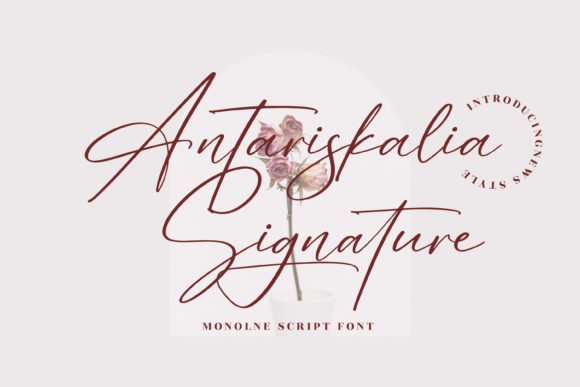
The Perfect Script for Your Masterpiece: Unveiling the Beauty of Antariskalia Signature Font
Have you ever stared at a blank canvas, trying to come up with the perfect design concept? The blank page stares back at you, taunting you to create something extraordinary. Suddenly, the perfect script font appears in your mind’s eye – elegant, sophisticated, and uniquely yours. That’s exactly what Antariskalia Signature Font is designed to evoke.
Antariskalia Signature Font is a stylish and incredibly elegant script font that adds a customized touch to any design. Whether you’re a seasoned designer or just starting out, this font is a valuable addition to your toolkit. With its PUA encoding, you can access all of the glyphs and swashes with ease, giving you complete creative control over your designs.
Antariskalia Signature Font Key Features
- Font Family: A beautiful, elegant script font designed for creating unique signatures and personal touches.
- Font Size: Designed to be highly scalable, with optimal results at sizes ranging from 12 to 72 points.
- Unique Characteristics: Features flowing connections, elegant swashes, and subtle flourishes to add a touch of sophistication to any signature.
- Character Count: Includes a comprehensive set of characters, including uppercase and lowercase letters, numbers, and punctuation marks.
Antariskalia Signature Font Review
As a designer, I was excited to dive into the Antariskalia Signature Font, and overall, it’s a solid addition to any typography library. Here’s what I liked: ✨
- Unique aesthetic: The font’s quirky, handwritten style gives it a distinct character that’s perfect for creative projects.
- High-quality design: The font’s lines are smooth, and the letterforms are well-spaced, making it easy to read.
- Comprehensive character set: The font includes a wide range of characters, including ligatures and alternates, which makes it versatile and suitable for various design applications.
However, there are a few limitations: ⚠️
- Not ideal for body text: While the font is great for headlines and titles, its irregular style makes it less suitable for large blocks of body text.
- Lack of bold weights: The font only comes in regular and italic weights, which might limit its use in certain design contexts.
Overall, the Antariskalia Signature Font is a great choice for designers looking for a unique, high-quality font for creative projects. Its limitations are relatively minor, and its strengths make it a valuable addition to any typography library.
Alternatives to Antariskalia Signature Font
Great Vibes Font is a modern, elegant script font perfect for creating a professional and luxurious look. It’s ideal for logos, branding, and packaging designs. Great Vibes Font has a more refined and polished appearance compared to Antariskalia Signature Font, which has a more handwritten feel.
Carolyna Pro Font is a high-end script font designed for creating sophisticated and elegant designs. It’s suitable for fashion, beauty, and luxury brands. Carolyna Pro Font has a more luxurious and refined appearance compared to Antariskalia Signature Font, which has a more casual feel.
Alex Brush Font is a beautiful, elegant script font perfect for creating a professional and stylish look. It’s ideal for logos, branding, and packaging designs. Alex Brush Font has a more refined and polished appearance compared to Antariskalia Signature Font, which has a more handwritten feel.
Q: Is the font optimized for use at small font sizes?
Yes, the Antariskalia Signature Font is designed to maintain its legibility and clarity even at small font sizes. However, as with any font, the quality may degrade at extremely small sizes. To ensure optimal results, we recommend using font sizes of at least 12 points or larger.